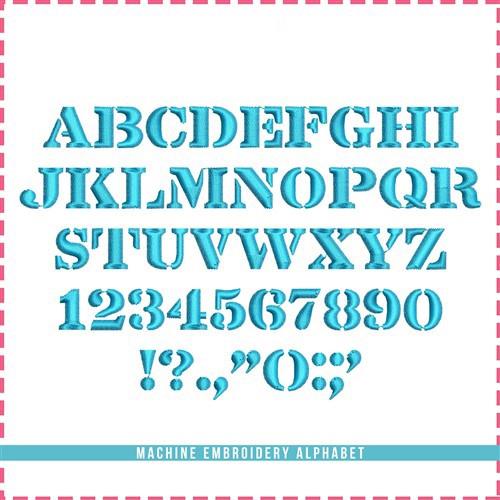
Maya Kreations is happy to present Army Font machine embroidery font which has Bold block machine embroidery font with a military style, perfect for uniforms and gear. Sample text 'ARMY' showcased in green. Available in PES, DST, and 8 other formats. included. If you would like to view more embroidery fonts and alphabets please search our embroidery fonts page.